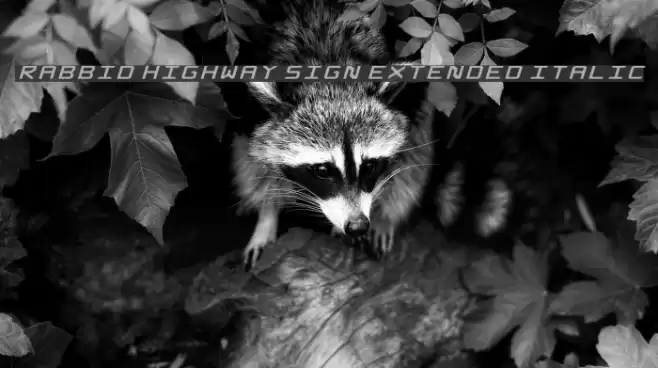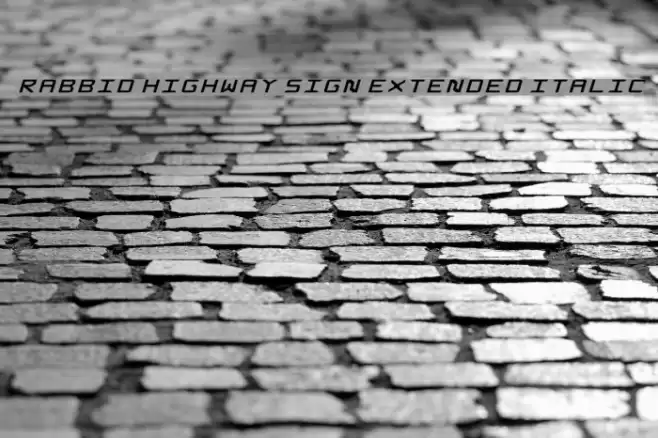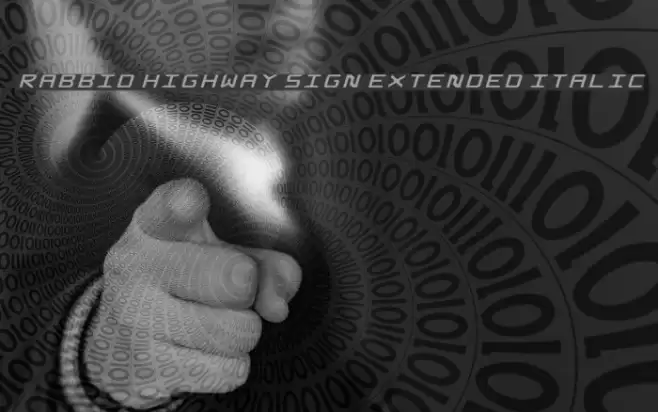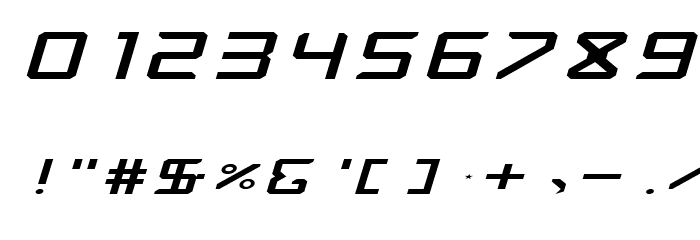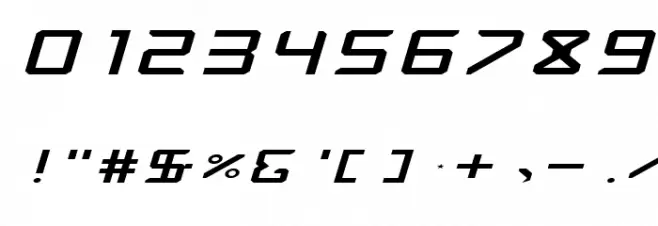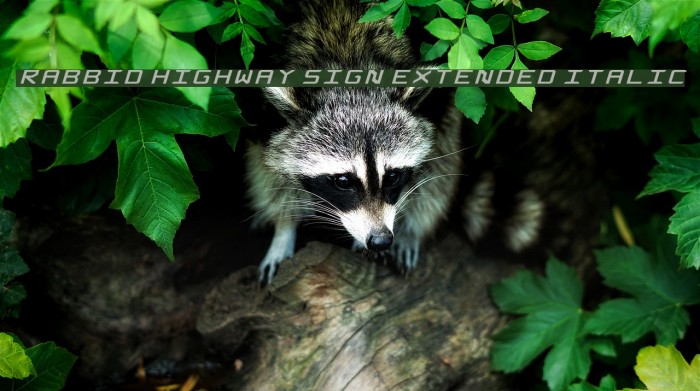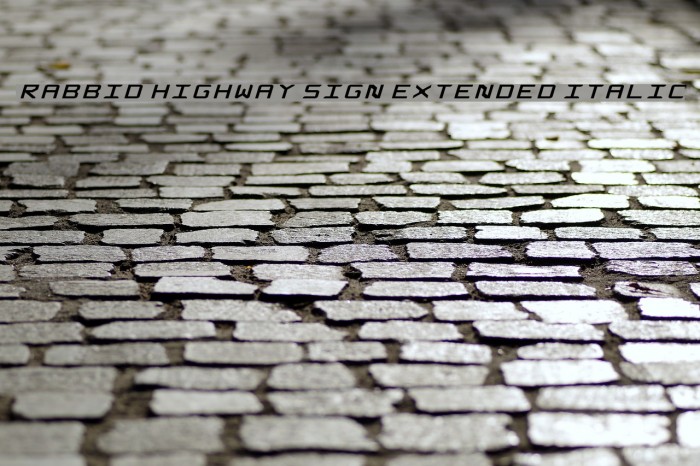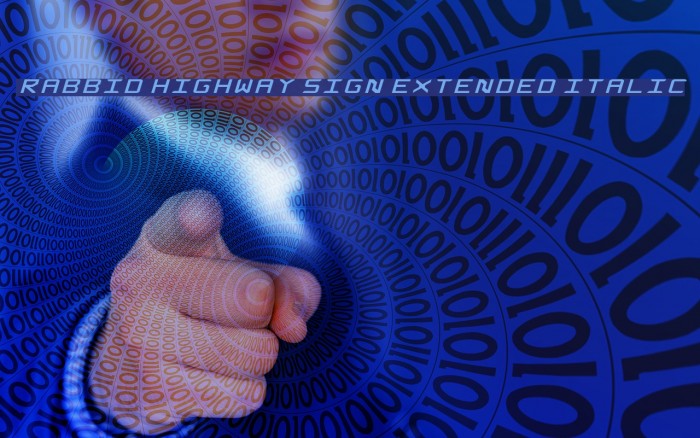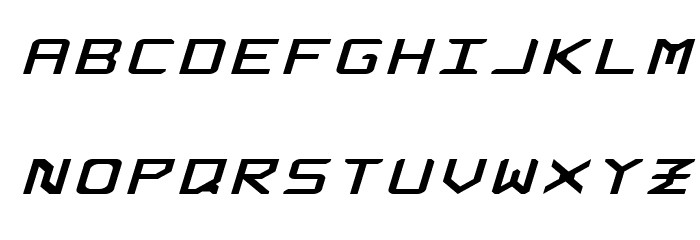
Rabbid Highway Sign Extended Italic Font
Rabbid Highway Sign Extended Italic Description
This font features a modern, geometric design with an italic slant, giving it a dynamic and forward-moving appearance. The characters are extended, providing a sense of speed and efficiency. The strokes are uniform in thickness, contributing to a clean and streamlined look. The angular shapes and sharp edges of the letters enhance its futuristic and technical feel. This style is reminiscent of highway signage, making it highly legible and suitable for quick reading. The font includes a full set of uppercase and lowercase letters, numbers, and a variety of special characters, ensuring versatility in usage.
A modern, italic, geometric font with extended characters and a technical feel from Uncategorized fonts.
- Proposed Projects: Ideal for use in transportation signage, technology branding, sports team logos, and dynamic advertising materials.